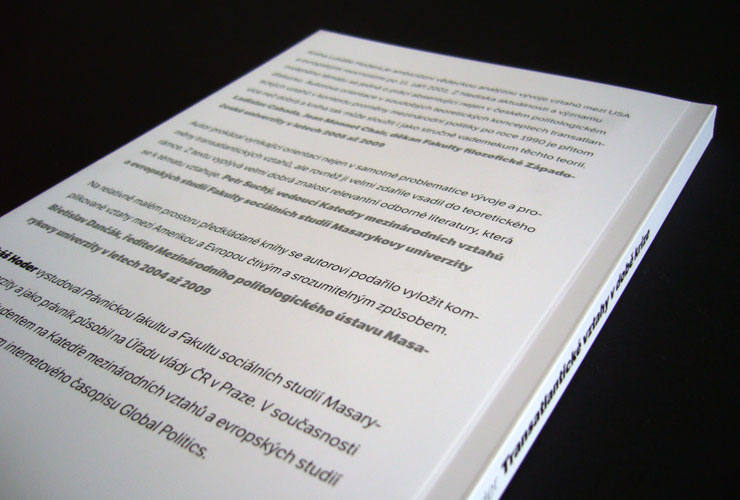
David Březina designed this book cover for the political study of “Transatlantic relations in the times of crisis” after 9/11. The goal was to create something sober and simple, yet playful and, importantly, contrasted. The predominantly typographic cover makes use of Etica, a typeface designed by LeftLoft, a group of Italian designers from Milan. The book was recently published by the International Institute of Political Science of Masaryk University.